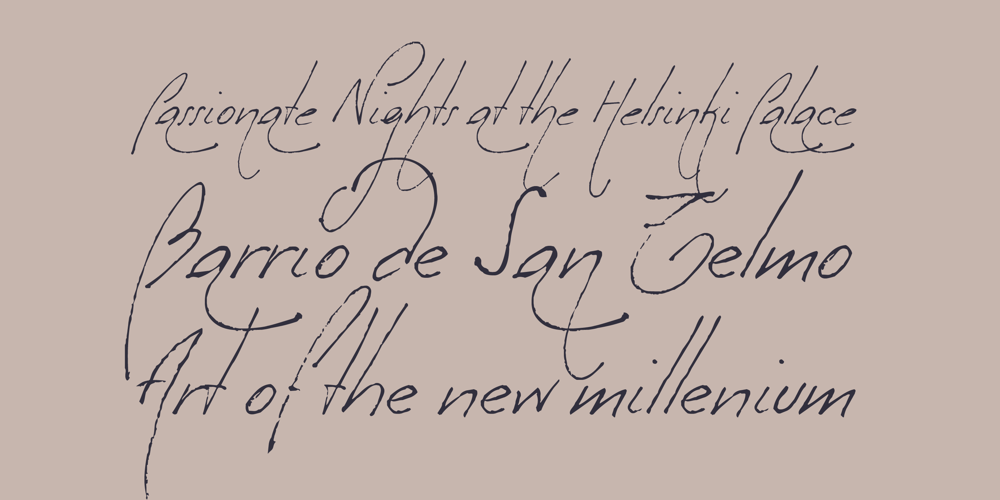
Milonguita
Milonguita font
Milonguita Font Family was designed by Alejandro Paul, Valeria Duarte and published by Sudtipos. Milonguita contains 1 styles and family package options. Milonga is one of the most characteristic dances of Argentina and it is usually compared to Tango. However, couples perform shorter and more energetic movements when dancing to the beat of Milonga. In addition, while Tango evokes the idea of nostalgia and reminiscence, Milonga conjures up more light-hearted memories in people’s minds. Milonguita was designed so that readers can experience the passion and spontaneity of this dancing style through words. Users can play with the upwards and downwards patterns of the letters creating different images and textures and thus, making texts flow smoothly and naturally, just as a warm piece of Milonga would. The irregularity of the strokes conveys emotions and establishes a bond between the font and the sensitivity of the writer. The result will be a typographic combination of elegance, energy and rhythm which will surely reach the heart of the reader. Milonguita comes in all font formats, including a Opentype version plenty of built-in alternates and a simulated random code. Digitized by Alejandro Paul.